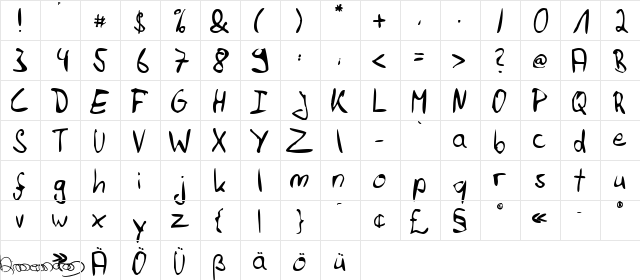
Felix Hand Regular
Design Context for Felix Hand Typeface
Felix Hand flows with the natural rhythm of handwritten lettering, making it ideal for designs that call for warmth and personal expression.
Font Pairing: Combine Felix Hand with a simple geometric sans for maximum contrast — the tension between flowing curves and clean structure is a classic typographic pairing.
Pro Tip: Use Felix Hand for short runs of text — names, titles, or taglines. Extended body copy in script faces tires the eye quickly.